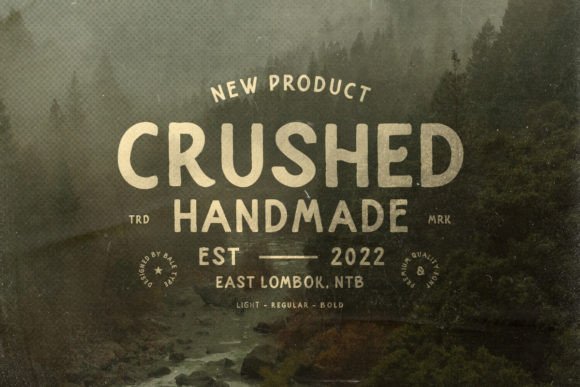
Looking for the perfect font to give your website a modern and adventurous vibe? Look no further than Crushed Font! Created by the talented team at baletype, this sans-serif family is the perfect choice for any project that requires a touch of organic roughness.
Crushed Font comes in three weights - light, regular, and bold - making it a versatile option for all your design needs. Whether you're creating a logo or adding some personality to your social media posts, Crushed Font is the perfect choice.
But what really sets Crushed Font apart is its unique, handcrafted feel. Unlike other modern fonts that can feel cold and sterile, Crushed Font is full of personality and character. Its rough edges and imperfect lines give it a warmth and humanity that is sure to make your designs stand out.
And with its adventure and outdoor vibes, Crushed Font is the perfect choice for projects that need a touch of excitement and energy. Use it for travel blogs, outdoor gear companies, or any project that needs to capture the thrill of exploration.